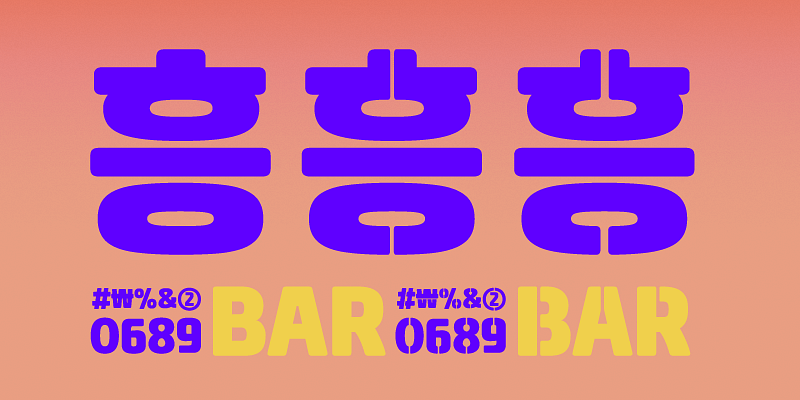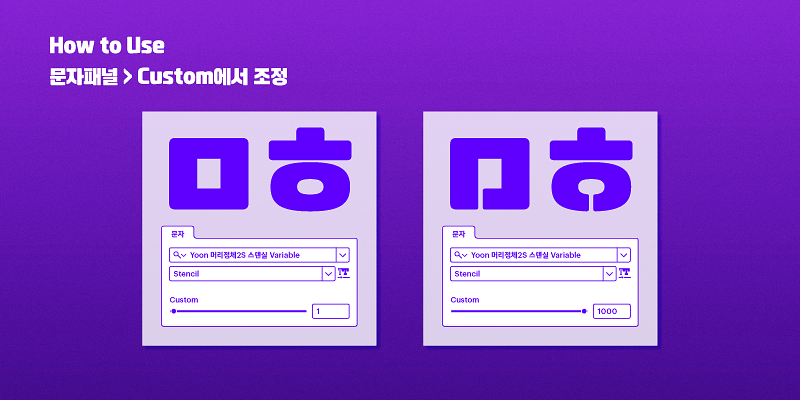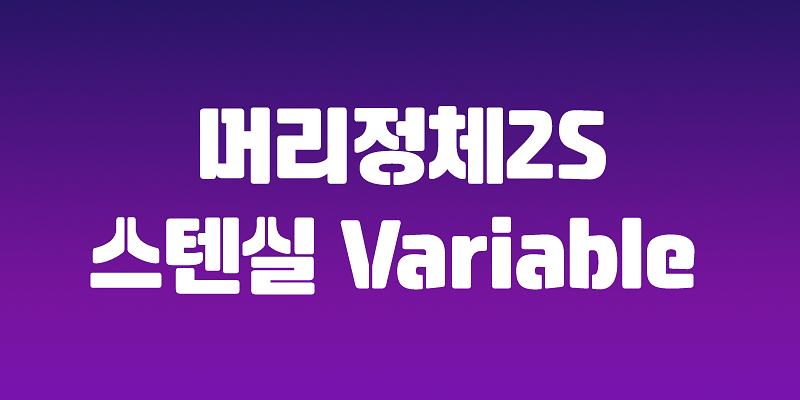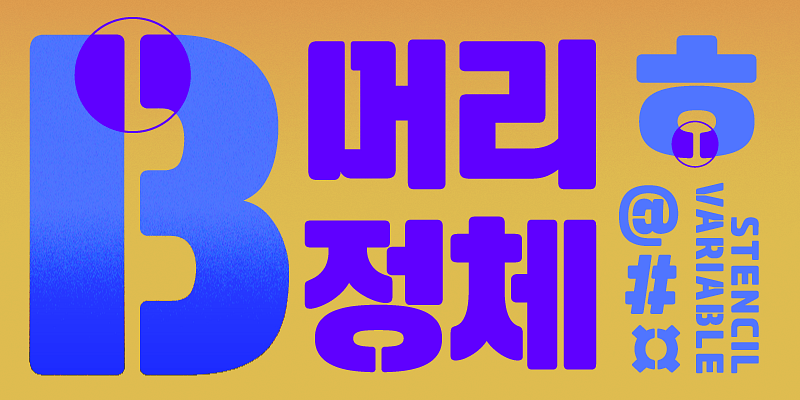
Variable Fonts offer the versatility to personalize their weight, width, serifs, among other attributes. With the Yoon Meolijeongche2S Stencil Variable font, you have the liberty to modify the dimensions of the stencil-style cut-out area, thereby crafting a design that is uniquely yours.